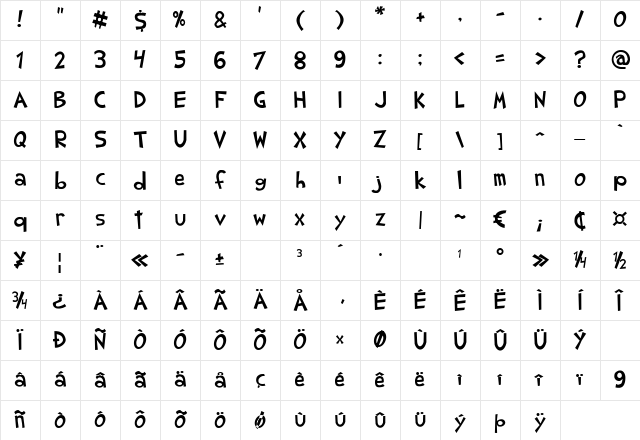
Complete Shark Random Funnyness Regular glyph index. Displaying only characters natively supported by Shark Random Funnyness Regular font.
Shark Random Funnyness has an approachable, lighthearted character - its loose, expressive forms are well-suited to children's content, casual branding, and fun-first design.
Font Pairing: Pairs well with a rounded or humanist sans for body copy, maintaining the friendly tone without relying on Shark Random Funnyness to carry extended reading.
Pro Tip: Use Shark Random Funnyness at larger display sizes where its expressive character can land. Pair with a clean, simple sans for body copy to maintain readability.